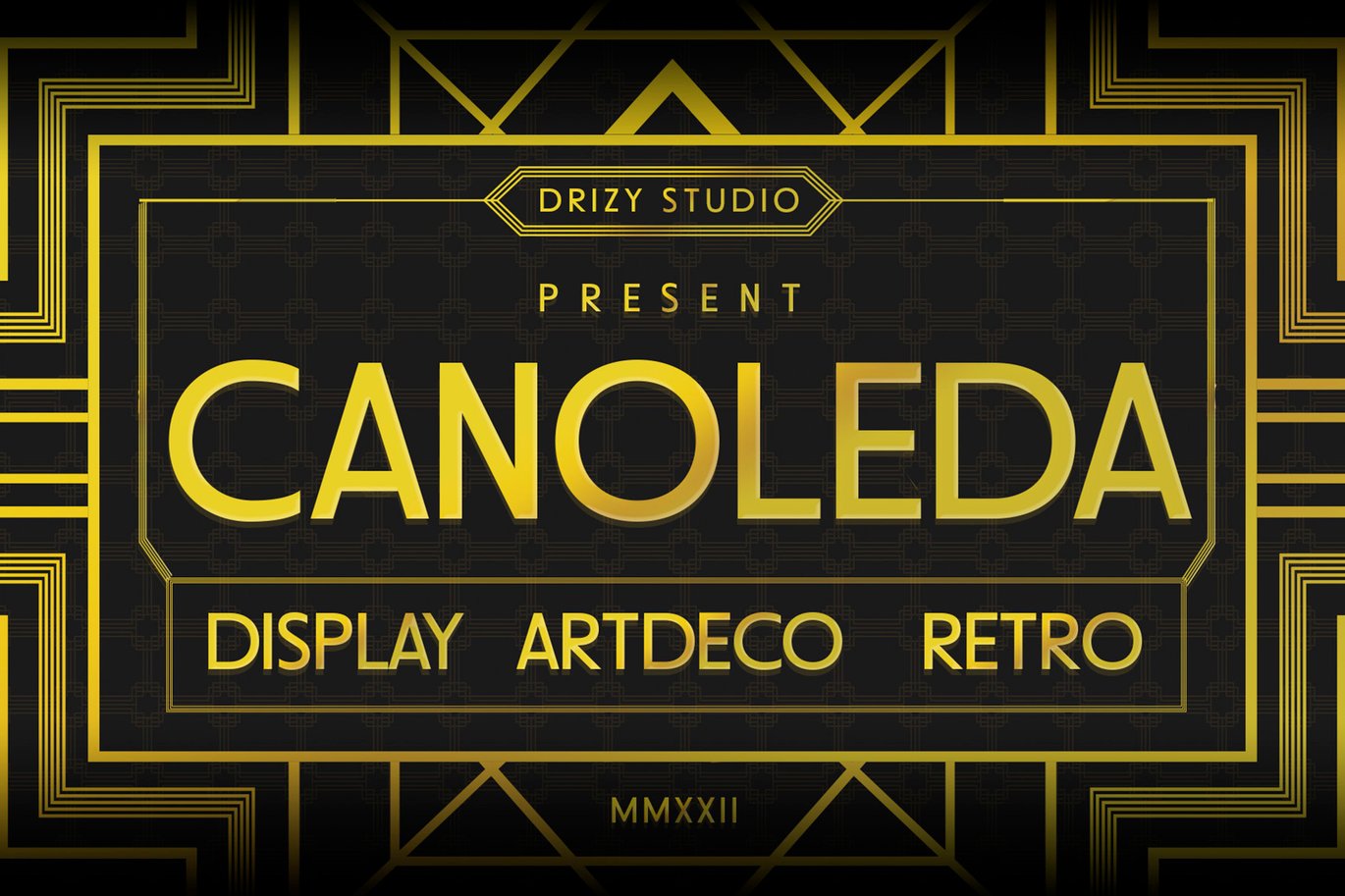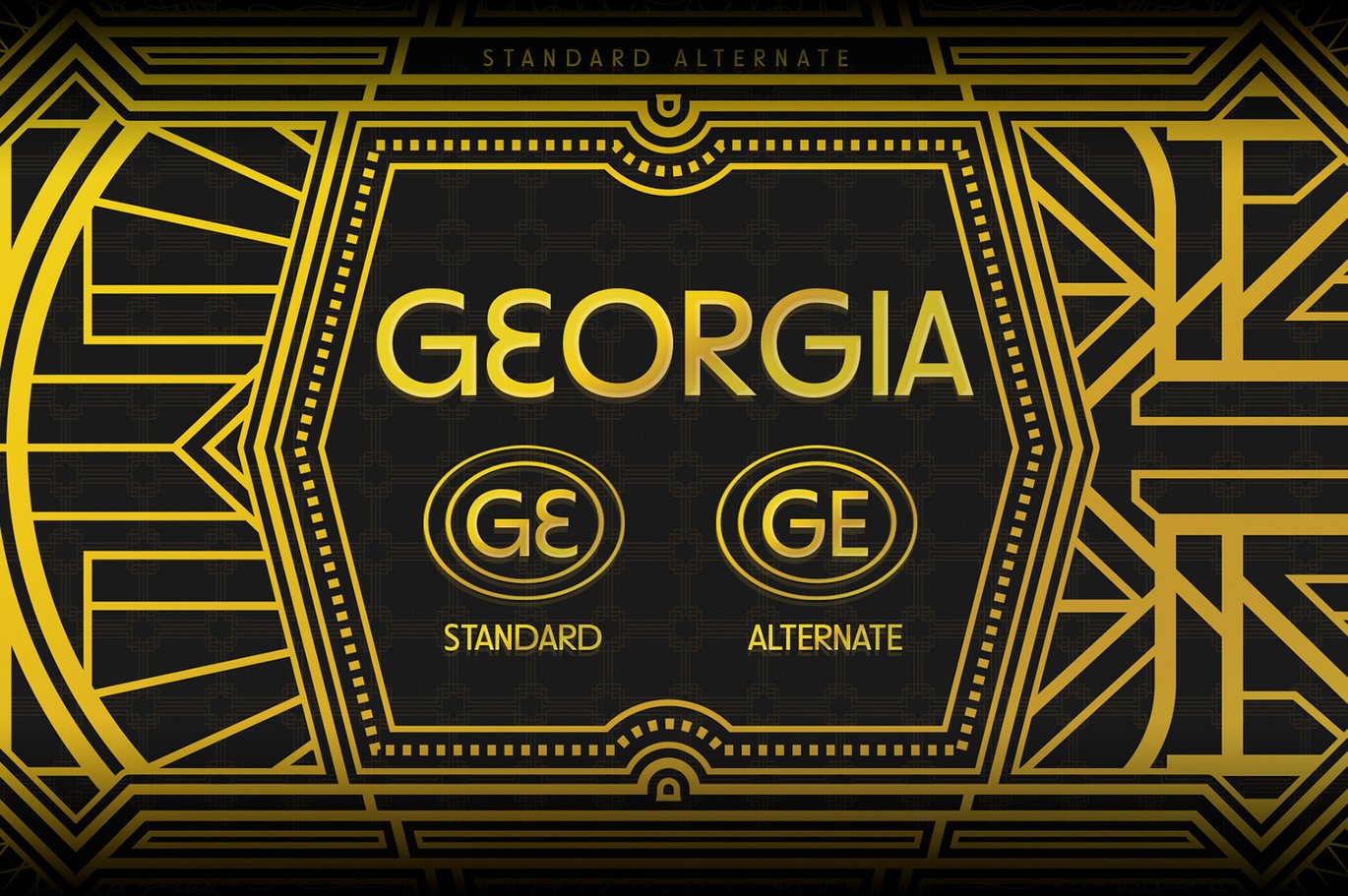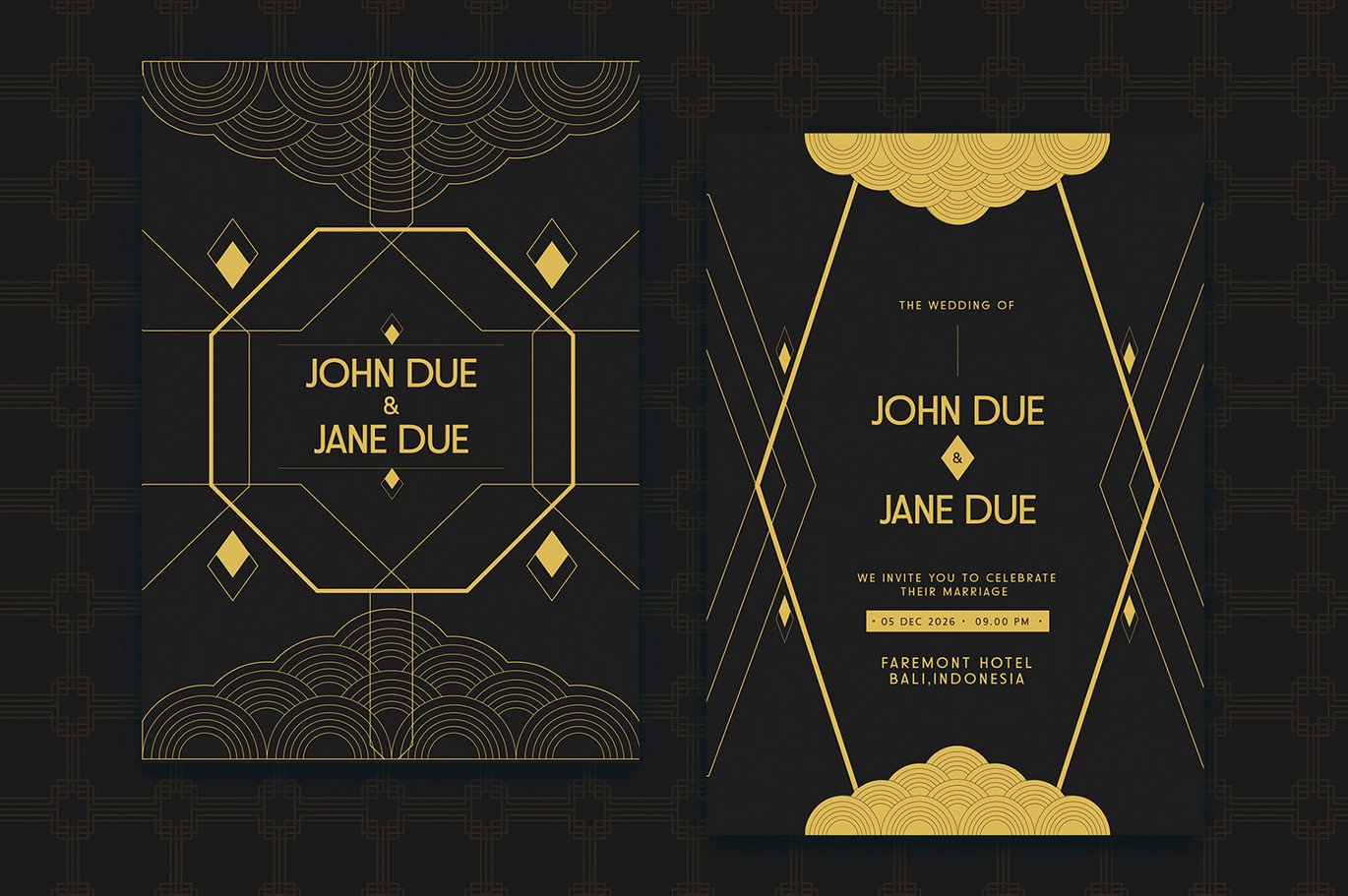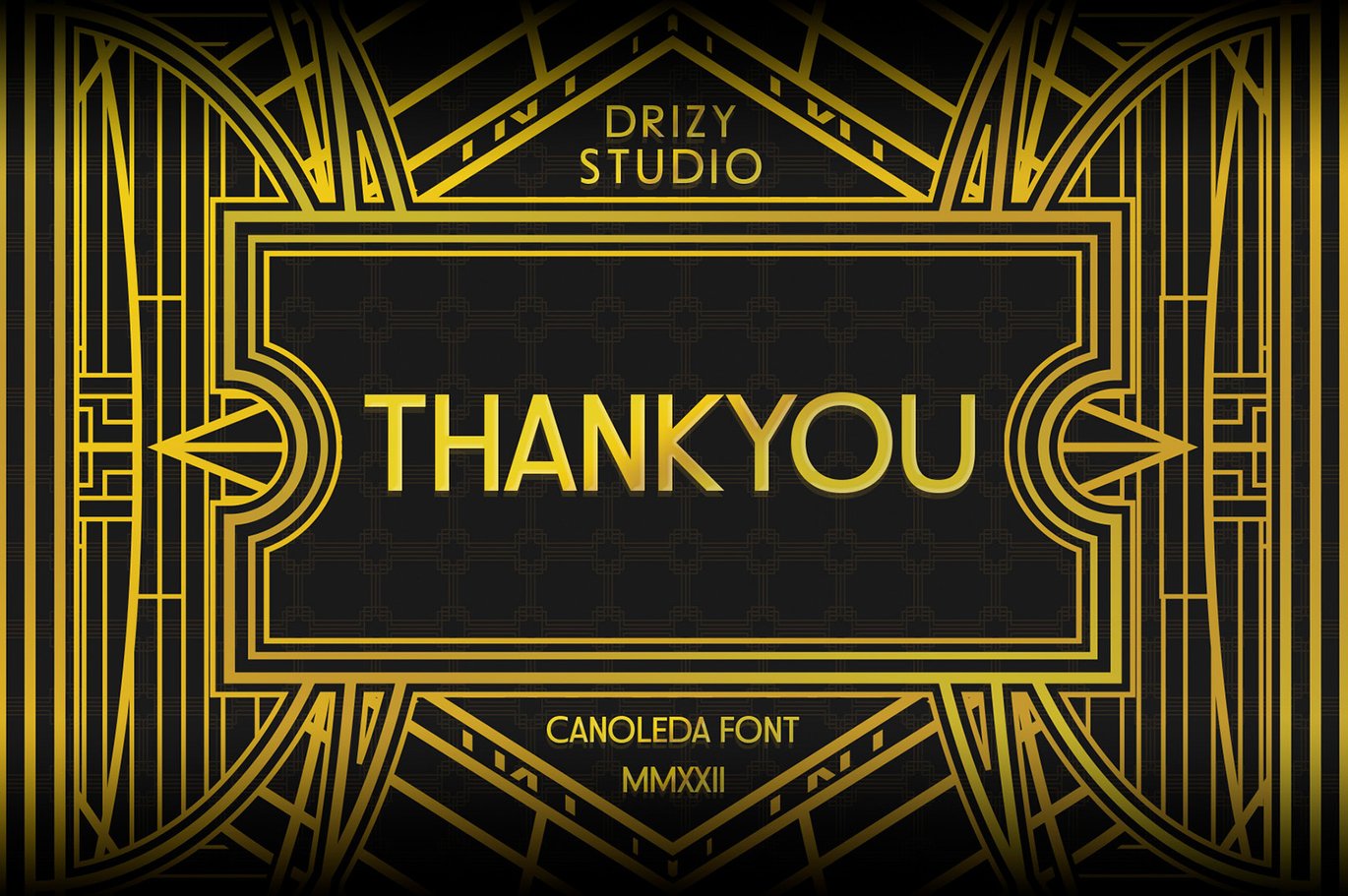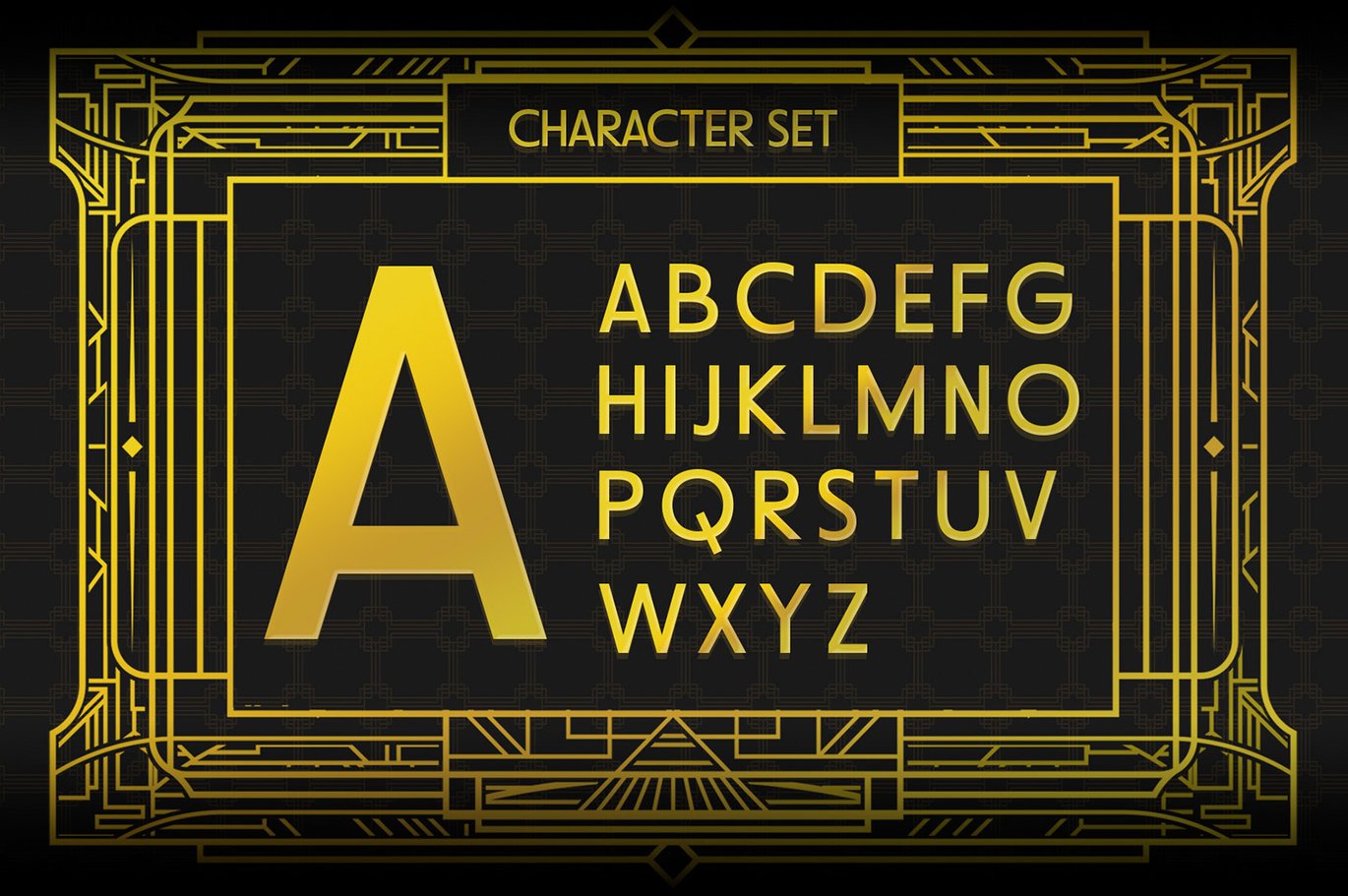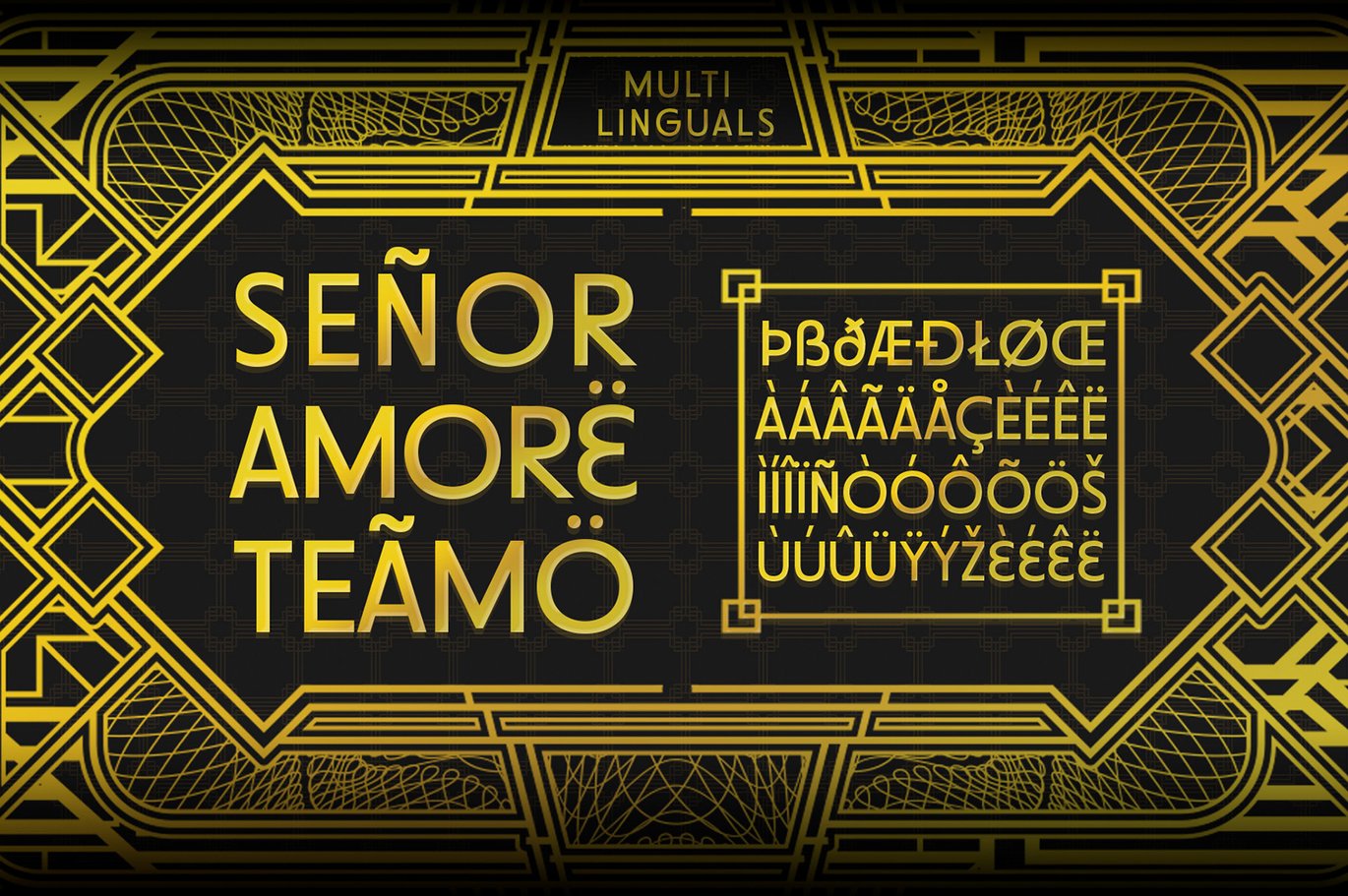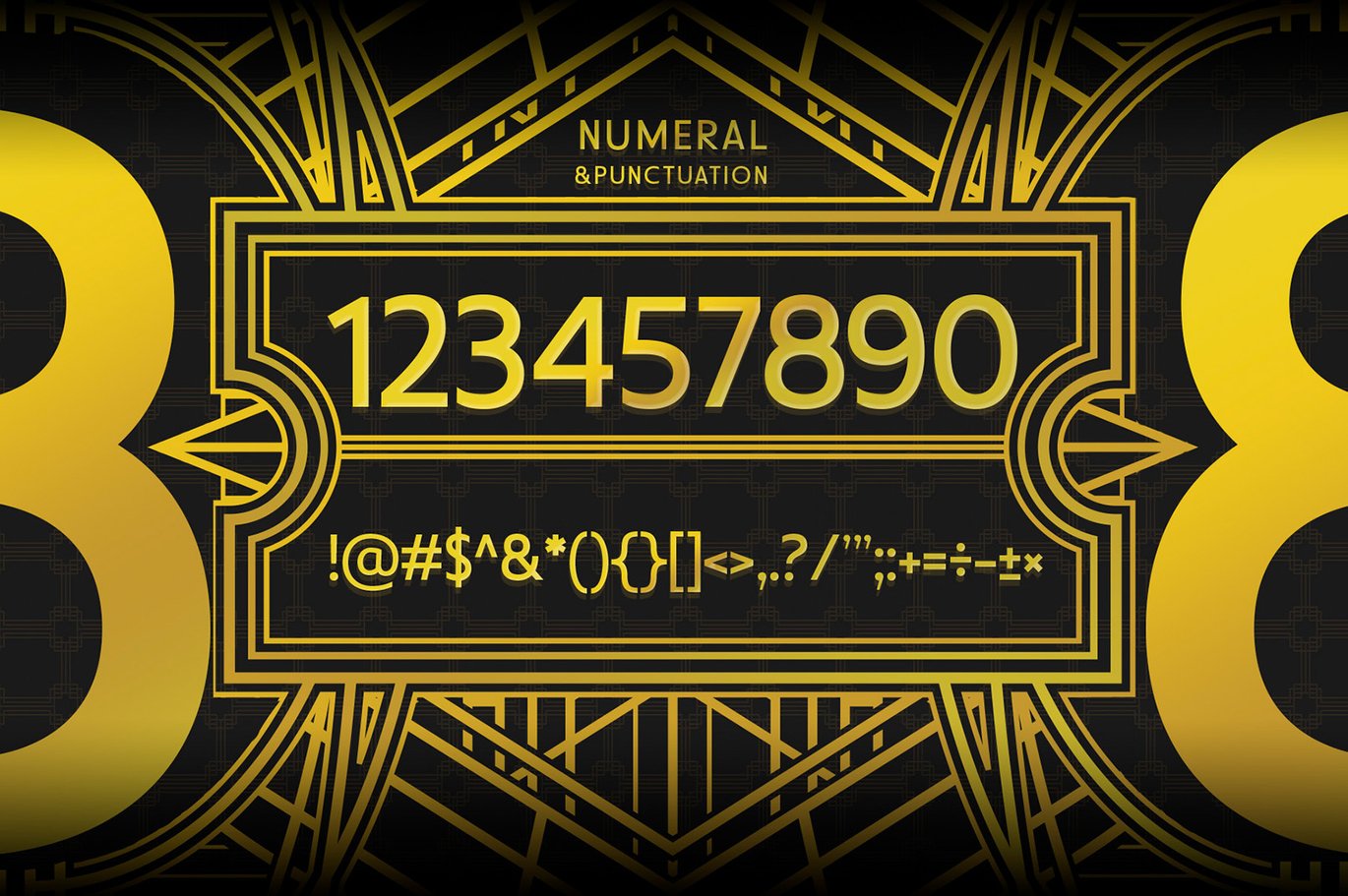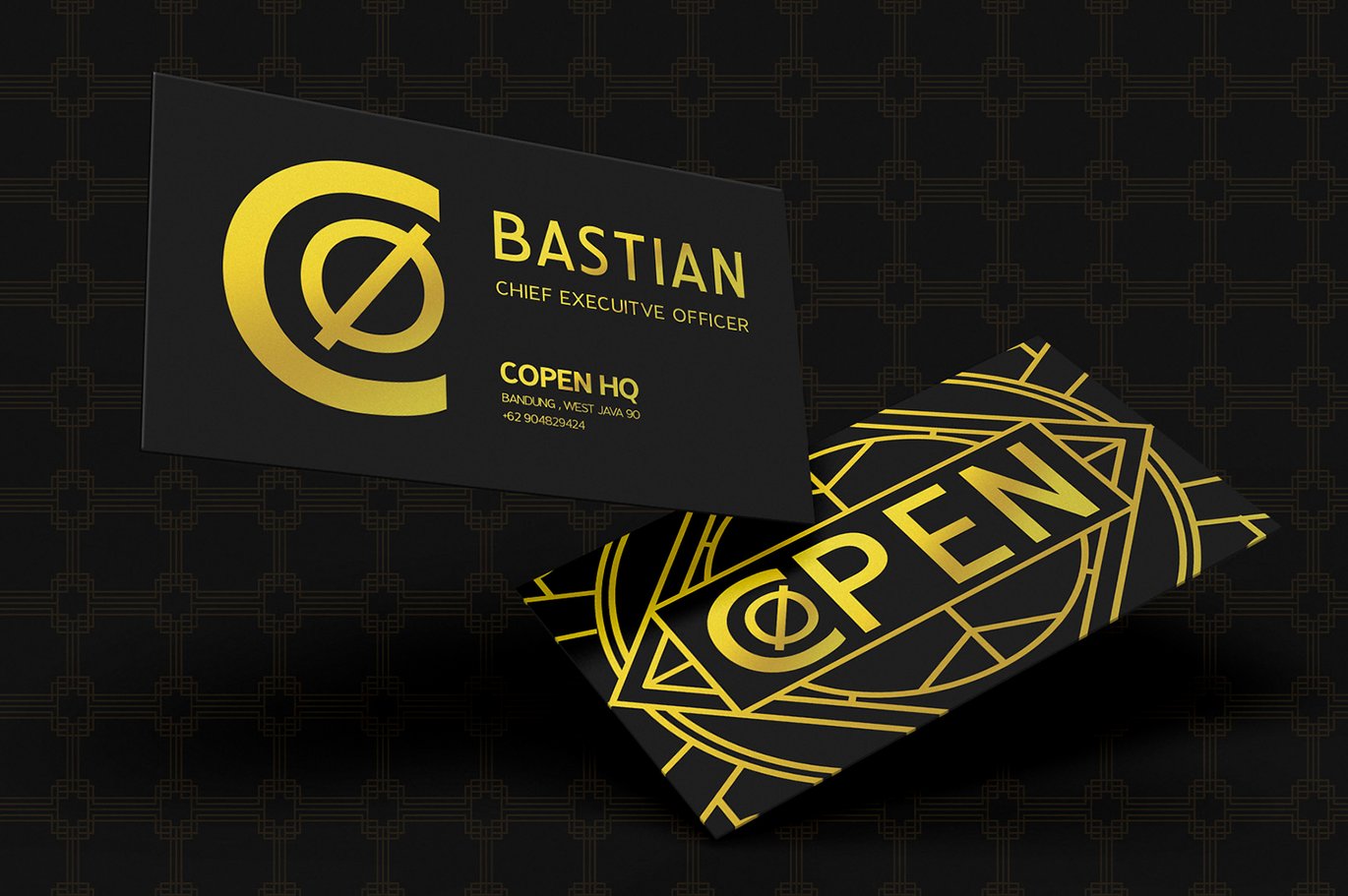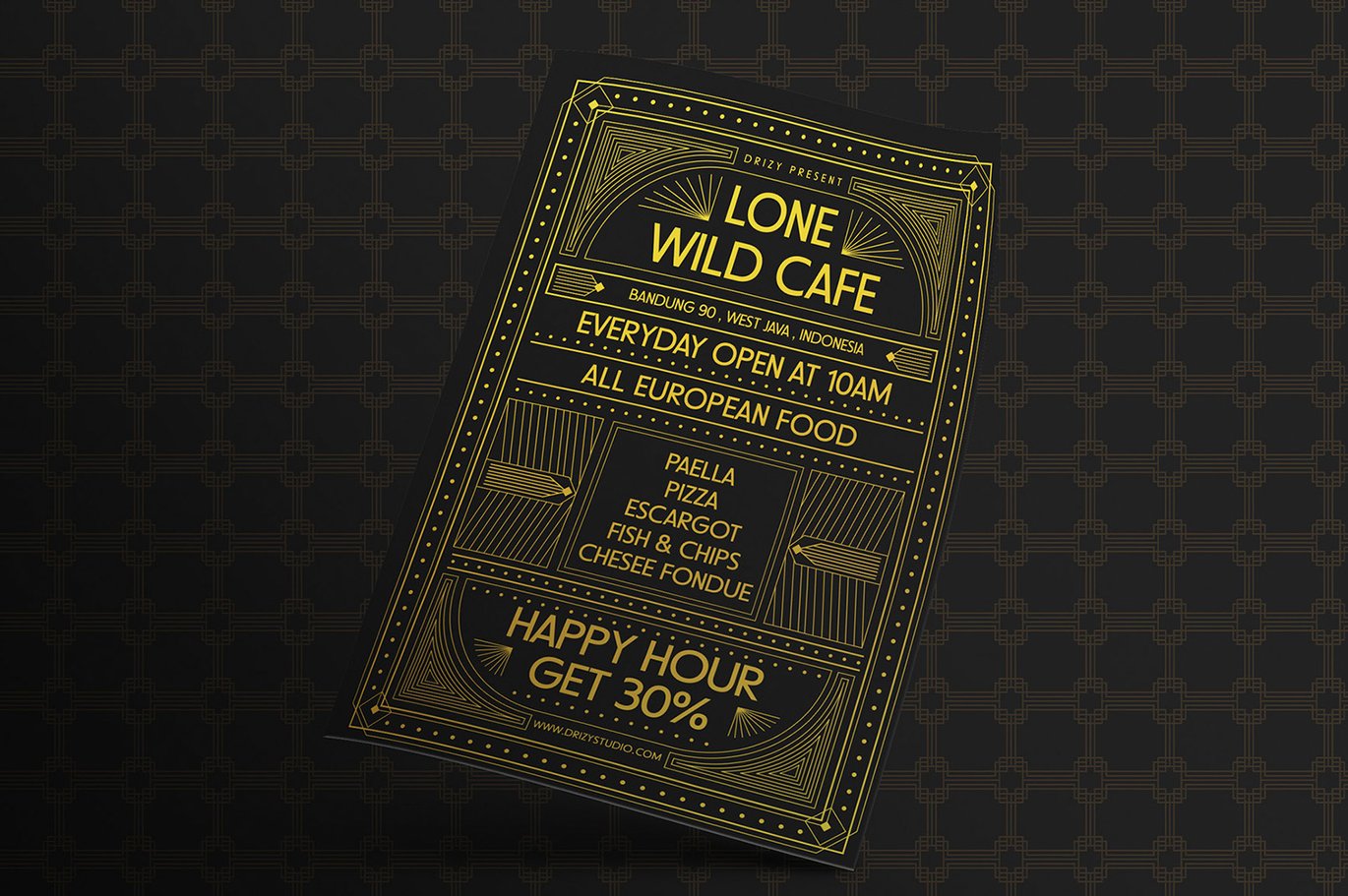
Canoleda – Geometric Art Deco Font
Canoleda – Geometric Art Deco Font from Drizy Studio. Offering all the styles you need for your projects.
Character Set
Alternates